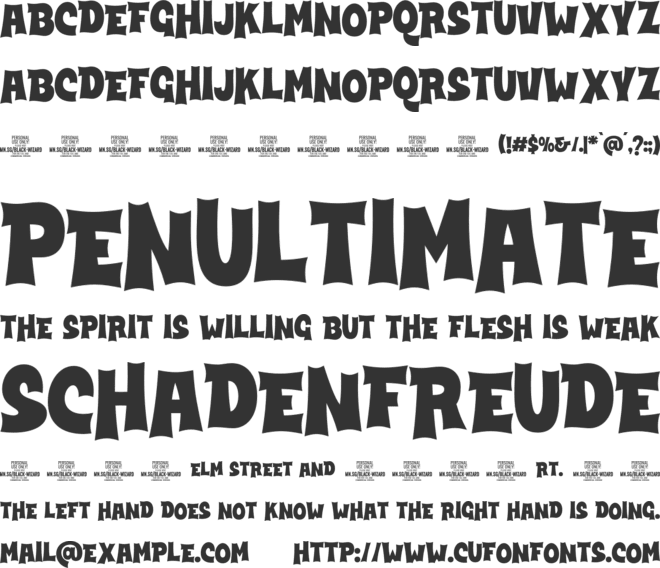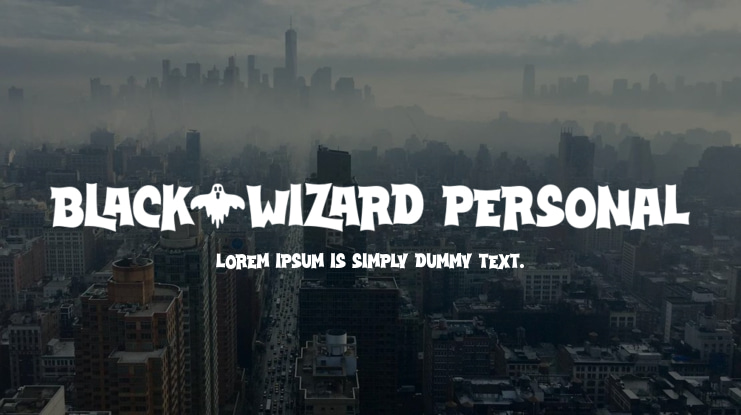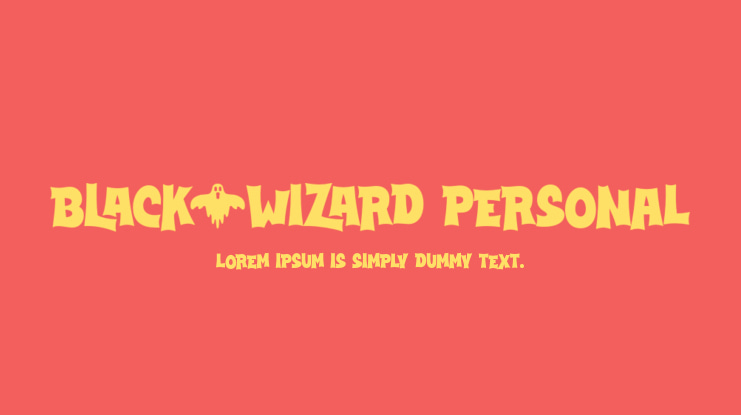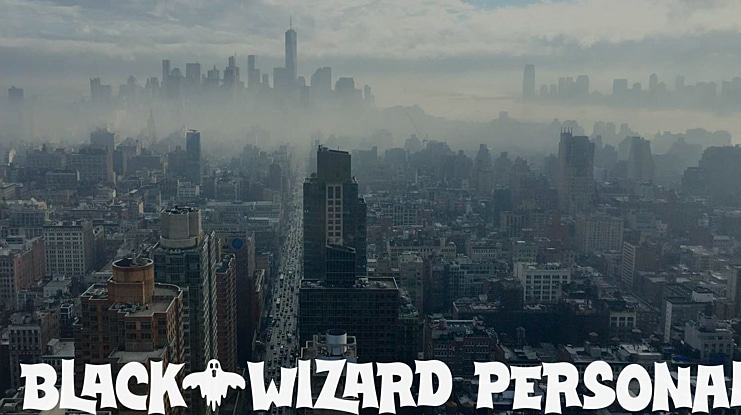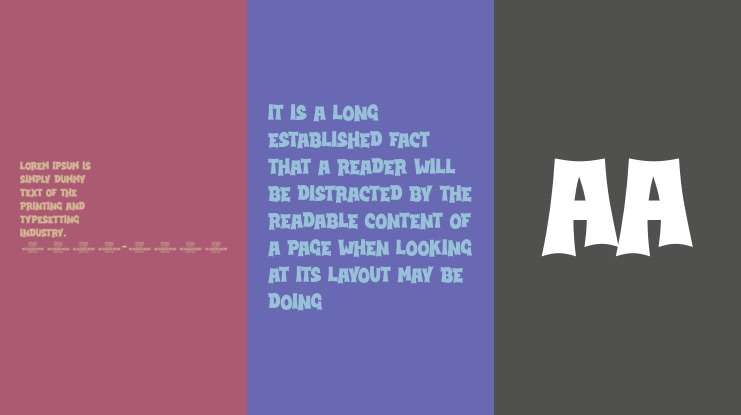
Black Wizard PERSONAL Font
Black Wizard is a bold and funky sans-serif font that has a playful character. It is particularly suitable for Halloween-themed designs, as its quirky appearance can add an extra touch of spookiness to your work.
To create a Halloween symbol, you can use the character ¤ anywhere within a word. For example, Scare¤Crow.